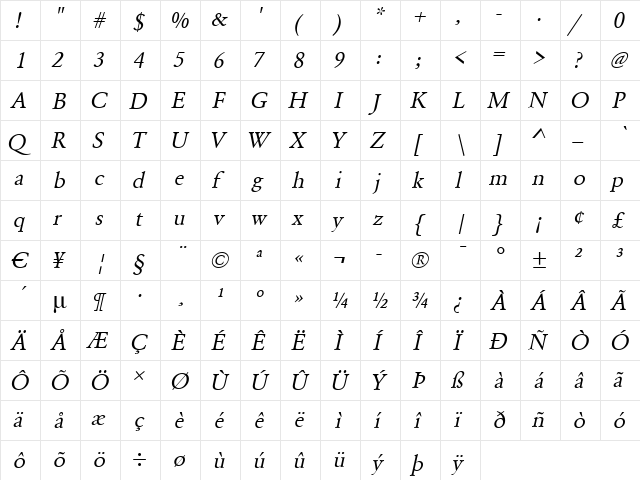
LionelBecker Italic
Design Context for LionelBecker Typeface
LionelBecker takes a measured approach to typography — its balanced proportions and neutral character make it a reliable workhorse for both digital and print work. The slanted form adds forward momentum and visual energy.
Pro Tip: Try LionelBecker for annotation and caption copy alongside an upright companion — the contrast in angle creates a dynamic but ordered typographic system.